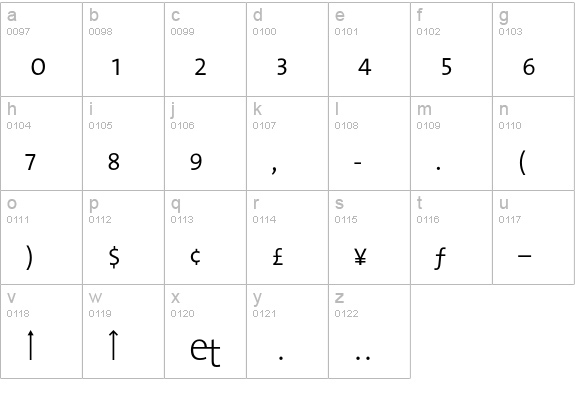
TheSansExtraLight Expert Font Details
TheSansExtraLight Expert font is a stunning typeface that exudes elegance and sophistication. With its delicate strokes and graceful curves, this font is perfect for adding a touch of refinement to any design project. Whether used in logos, headlines, or body text, TheSansExtraLight Expert font effortlessly captivates the attention of viewers. One of the standout features of this font is its incredible legibility, making it ideal for both print and digital media. The carefully crafted letterforms ensure that each character is easily distinguishable, even at smaller sizes. This makes TheSansExtraLight Expert font an excellent choice for projects that require clear and crisp typography. The versatility of TheSansExtraLight Expert font is also worth mentioning. Its subtle and understated design allows it to blend seamlessly with a wide range of design styles, from modern and minimalist to classic and timeless. This font truly has a timeless appeal that will never go out of style. And the best part? TheSansExtraLight Expert font is available for free! You can download this amazing font for no cost at FontsMarket.com. This means that you can enjoy all the benefits and beauty of TheSansExtraLight Expert font without breaking the bank. So why wait? Enhance your designs with this exquisite font and make a lasting impression on your audience.